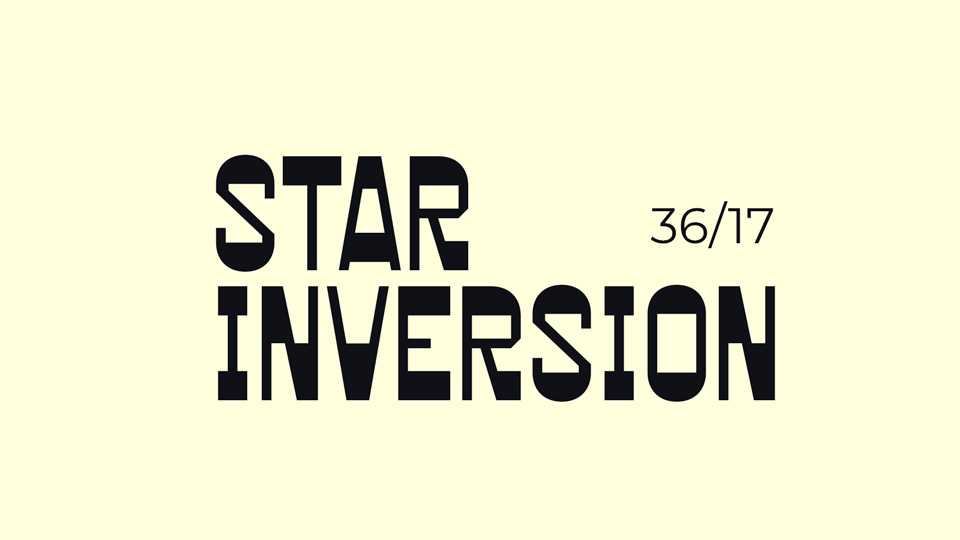
Download Star Inversion font, a reverse contrast display typeface, loosely inspired by a specific lettering style, found on another sci-fi book cover.
Designer: Justin Penner